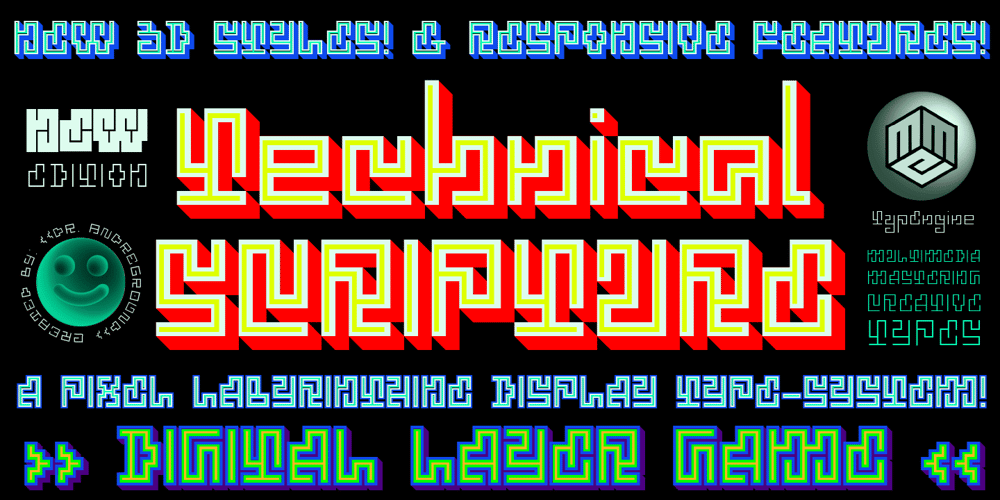
Technical SCRIPTURE
Technical SCRIPTURE font
Technical SCRIPTURE Font Family was designed by Dr. Andréground and published by MMC-TypEngine. Technical SCRIPTURE contains 18 styles and family package options. ‘Technical Scripture’ 2015-2021 A manuscript look, Pixel labyrinthine Display Type System… Plus, an Optical “Layered Game”, Retro Futuristic Sci-Fi Digital interface evolving placeholder… Now with 3D Styles!It was designed as a pair to its brother font ‘Technical Signature’ a Small Caps Font, both inspired by antique Greek, mosaics zig-zag ornaments “ancient times computer” intentionally as a Romanic variation with same metrics…Searching for Technical Solutions, it resulted in many combined styles by matching the primary ones so there’s plenty variations for multi-purpose texting like layered typesetting or simply monochromatic designs… Plus got accurate streaming resolution, therefore some sub-families like Stamp and Texture implicates greater points for minimum size as Regular and Light is appropriated to Small Optical Text reductions. *The New 3’s Upgraded Edition Improvements consisted of Correct ‘Font Info’ (verified data-debugging) rescaled glyphs, quick design review, better style linking with correspondent renamed fonts, addition of automatic OT features encoding, 3D Styles and Italics. Ps. This actual Typeface was quickly re-edited for technical reasons and hasn’t yet reached the intended design, it will soon receive a more tangible redesign upgrade, mainly in lowercases to enhance cursive style. Due to other priorities.Tip: Give preference to THE LYSERGIC UPPERCASES! Multilanguage Support: Western & Eastern European, Baltic, Turkish, Greek, and Cyrillic.This Type is pleasant to Technician Compositions, Such as Briefs layouts manuscript, Old Engineering & Crafts Logos or Support Text, Op-Art Posters, Stamps, Labels, movies and Cartoons Ludic Scripts, sites and of course Video Games!Try ‘Technical Scripture’ & Have some Power to the Pixel! Padang!